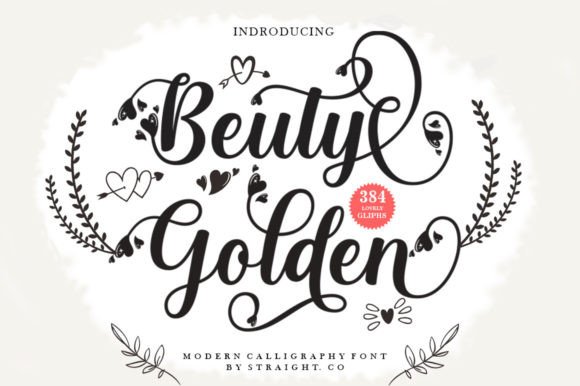
Introducing Beuty Golden Font: Elevate Your Designs with Elegance
Are you a designer or crafter looking for a font that exudes elegance and sophistication? Look no further than Beuty Golden Font, a delicate and flowing handwritten font that is sure to take your creative projects to the next level. With its beautiful and well-balanced characters, Beuty Golden is the perfect addition to any design, from luxury branding to wedding stationery, and beyond.
The Characteristics of Beuty Golden Font
Beuty Golden Font boasts a range of characteristics that make it a standout choice for designers. Its varying baseline and smooth lines create a sense of fluidity and movement, while its gorgeous glyphs and stunning alternates add a touch of whimsy and personality. Whether you’re looking to create a bold statement or a subtle impression, Beuty Golden has the versatility to match a wide pool of designs.
What Makes Beuty Golden Font So Special?
So, what sets Beuty Golden apart from other fonts on the market? Here are just a few reasons why designers and crafters are falling in love with this beautiful font:
- Delicate and elegant: Beuty Golden has a refined, sophisticated feel that is perfect for high-end designs.
- Flowing handwritten style: The font’s flowing lines and curves create a sense of movement and energy.
- Well-balanced characters: Each character is carefully crafted to ensure that the font looks beautiful and harmonious.
- Varying baseline: The font’s varying baseline adds a touch of whimsy and personality to your designs.
- Stunning alternates: With a range of alternate characters to choose from, you can add even more personality to your designs.
How to Use Beuty Golden Font in Your Designs
Beuty Golden Font is incredibly versatile, and can be used in a wide range of design applications. Here are just a few ideas to get you started:
- Luxury branding: Use Beuty Golden to create sophisticated logos, business cards, and letterheads.
- Wedding stationery: Add a touch of elegance to your wedding invitations, save-the-dates, and thank-you cards.
- Packaging design: Use Beuty Golden to create beautiful labels, packaging, and point-of-purchase displays.
- Digital design: Add a touch of sophistication to your website, social media graphics, and email marketing campaigns.
Tips for Getting the Most Out of Beuty Golden Font
To get the most out of Beuty Golden Font, here are a few tips to keep in mind:
- Experiment with different sizes and colors: Beuty Golden looks beautiful in a range of sizes and colors, so don’t be afraid to experiment and find the perfect combination for your design.
- Pair with other fonts: Beuty Golden pairs beautifully with other fonts, so try combining it with a bold or modern font to create a striking contrast.
- Use the alternates: Don’t be afraid to get creative with the font’s alternate characters – they can add a touch of personality and whimsy to your designs.
| Font Name | Beuty Golden Font |
| Author | STRAIGHT.CO |
Beuty Golden Font is a beautiful, elegant, and sophisticated font that is sure to elevate your designs to the next level. With its delicate and flowing handwritten style, well-balanced characters, and stunning alternates, Beuty Golden is the perfect choice for designers and crafters looking to add a touch of luxury and sophistication to their creative projects. So why wait? Download Beuty Golden Font today and start creating beautiful designs that will leave a lasting impression!